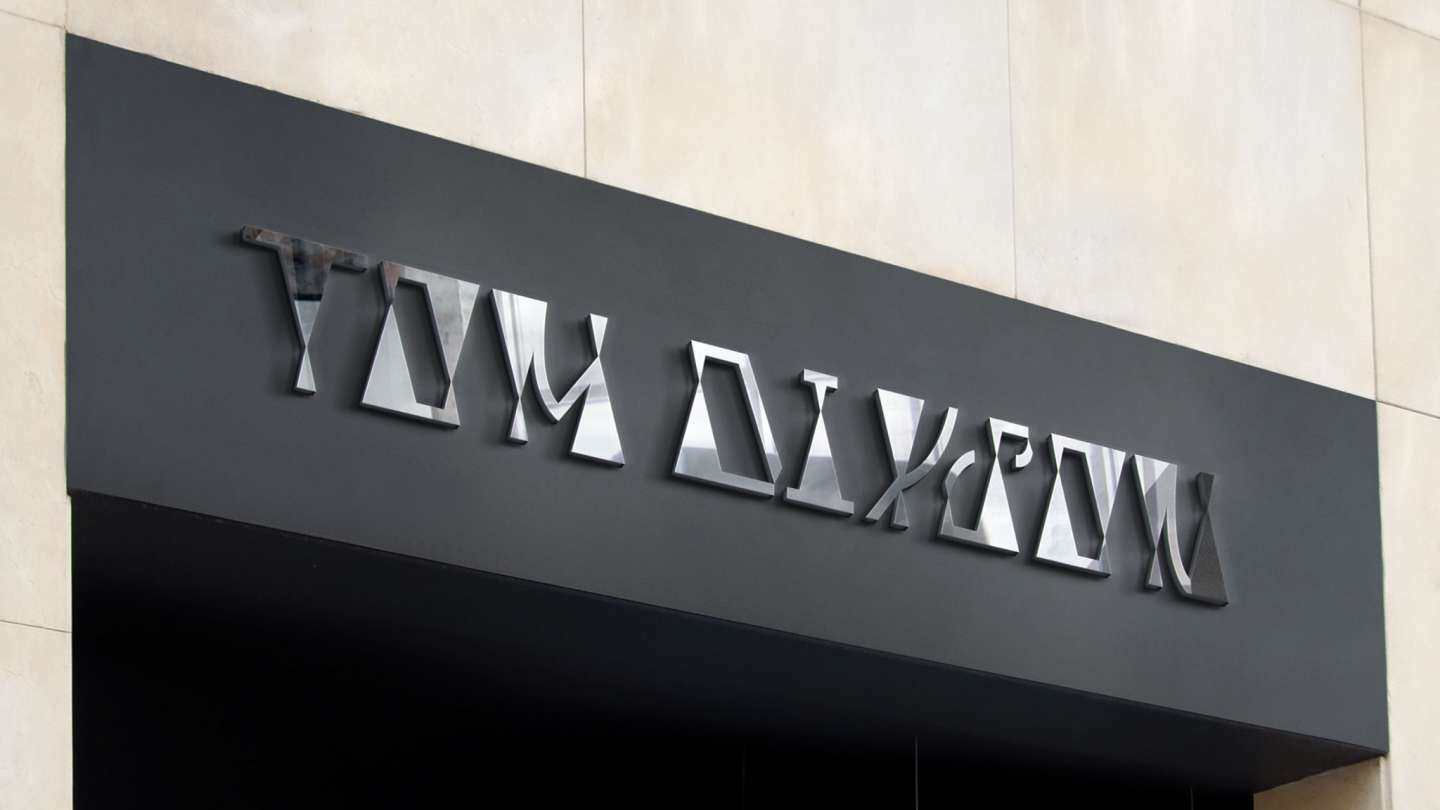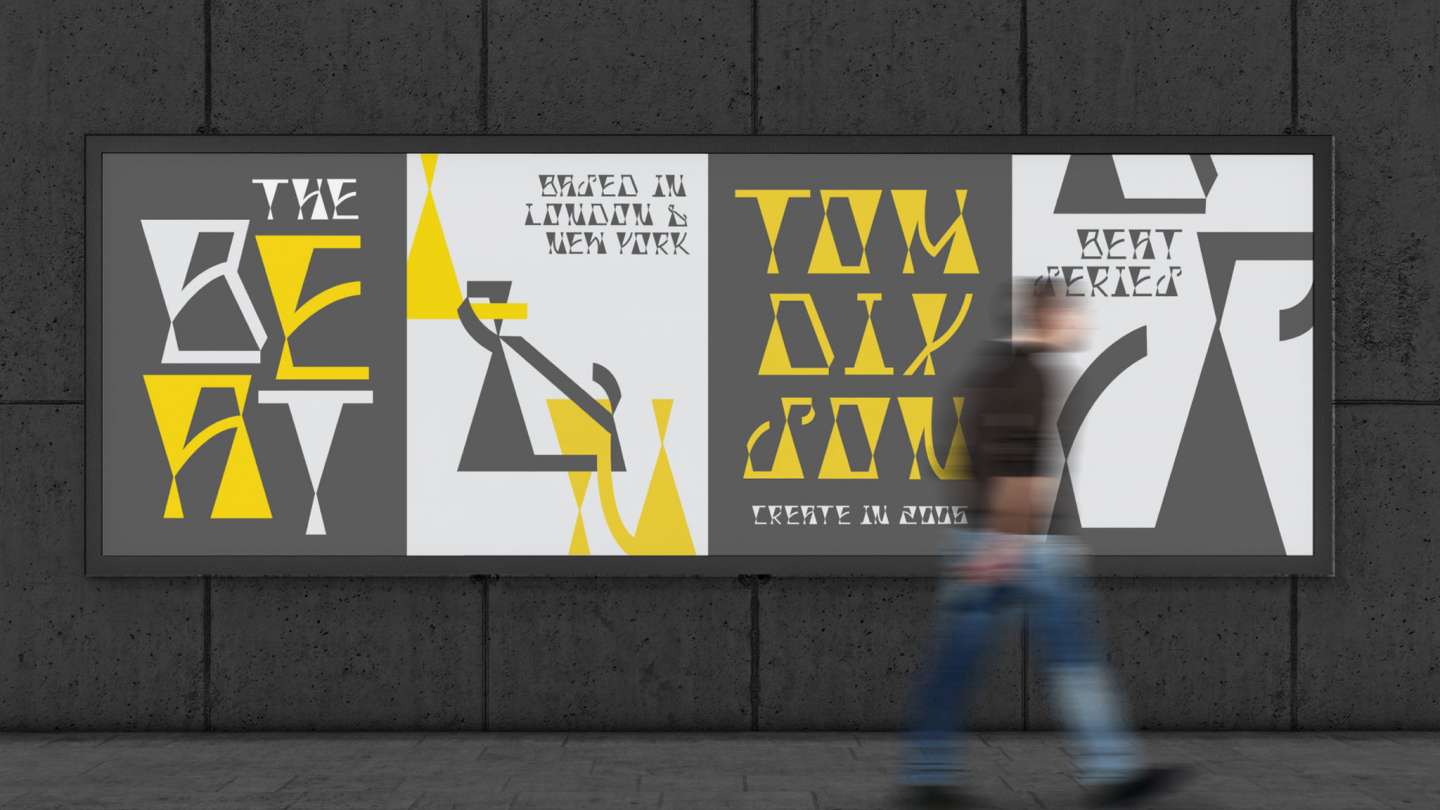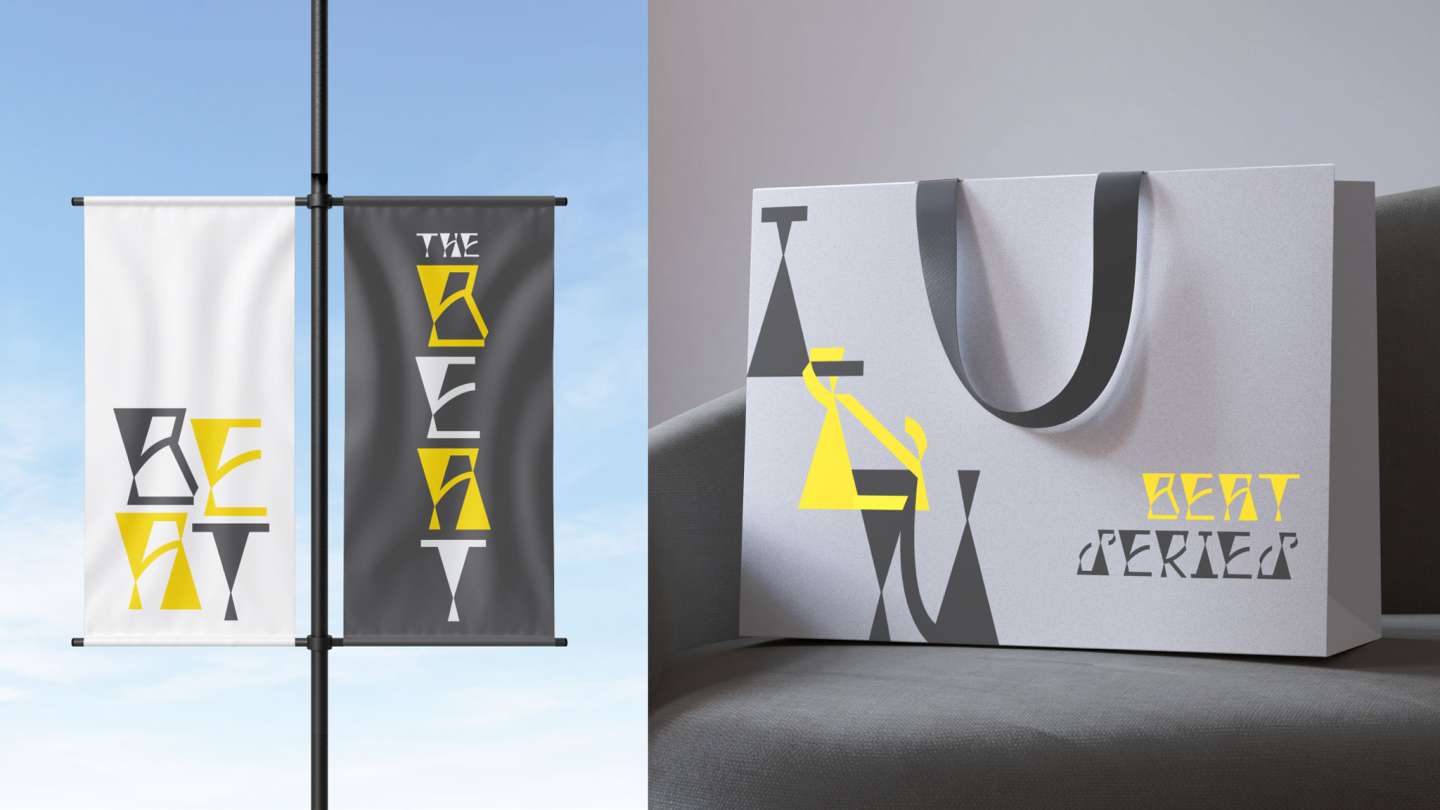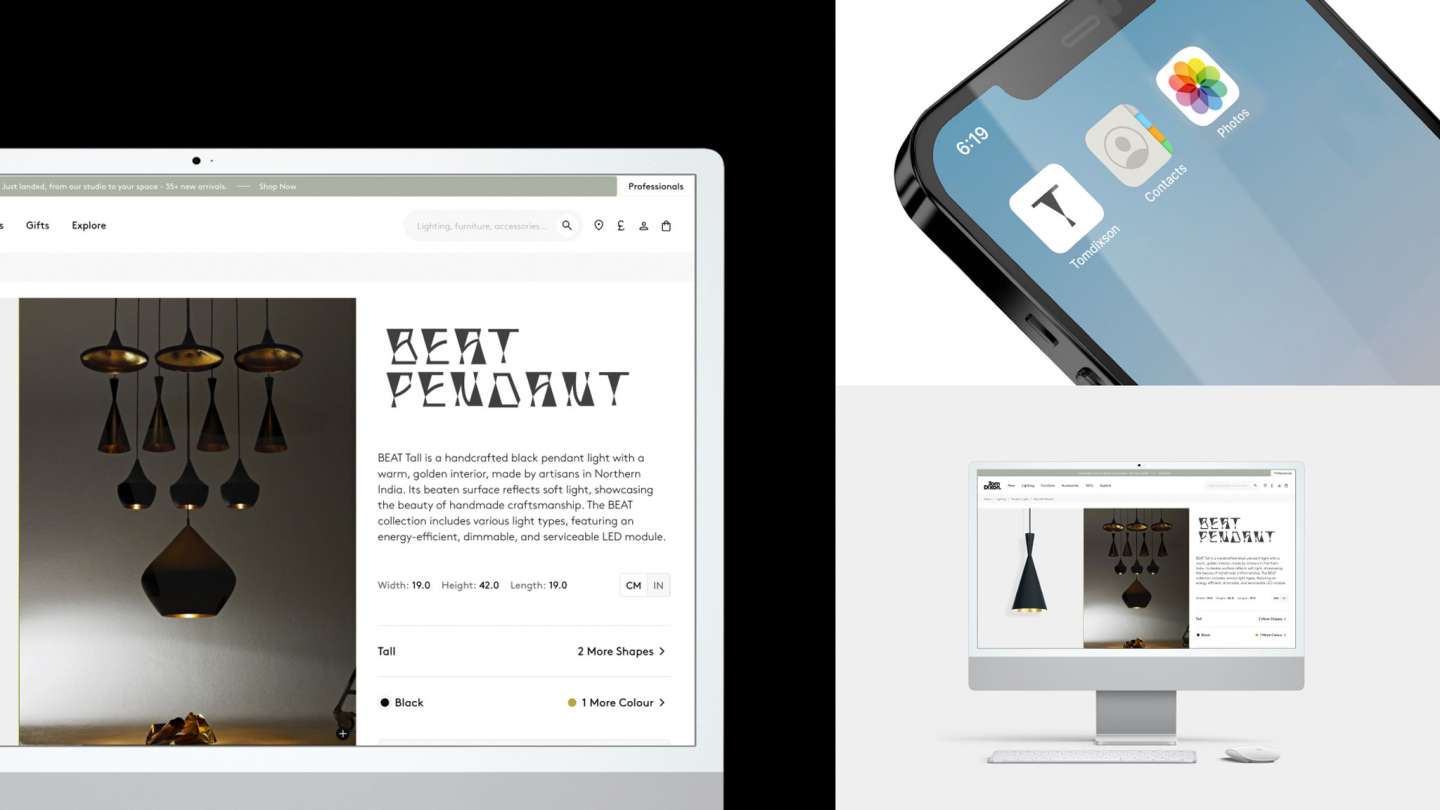
The Beat Custom Typeface Yun Jun Kim A custom typeface inspired by Tom Dixon’s Beat lighting. The letterforms reflect the bold silhouettes and metallic forms of the lamps, translating their sculptural shapes into a geometric and modern typographic system. Student Yun Jun Kim Major Graphic Design Course Intermed type 1 Instructor Brankica Harvey, Jack Collins Year 2026 Tags Branding, Typography Share twitter facebook link